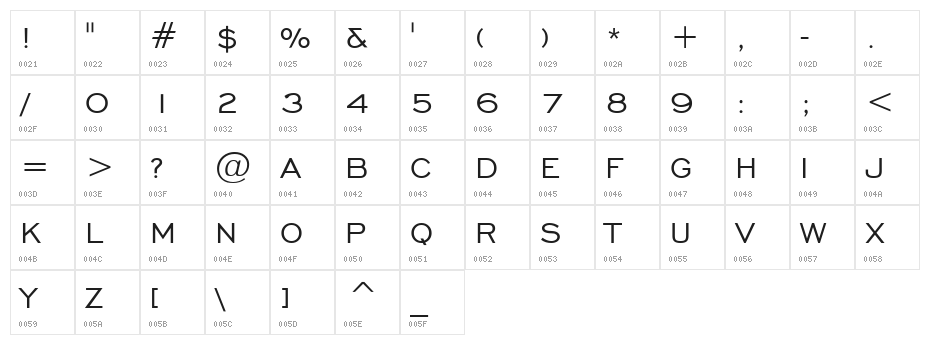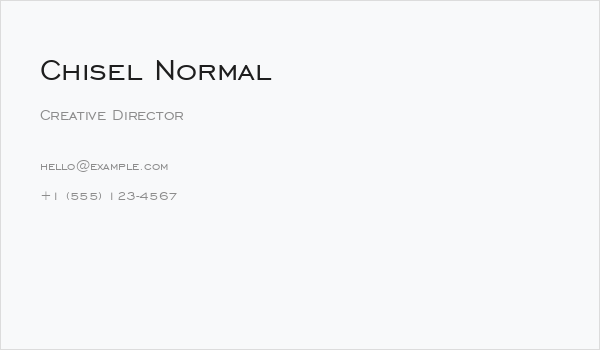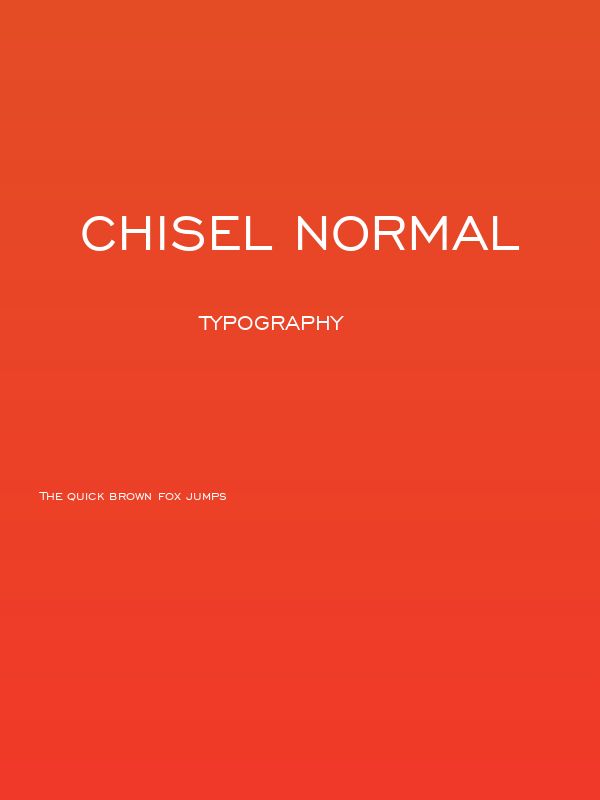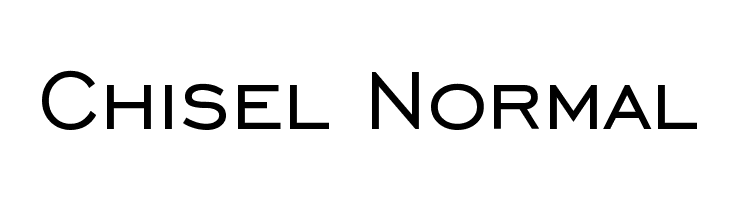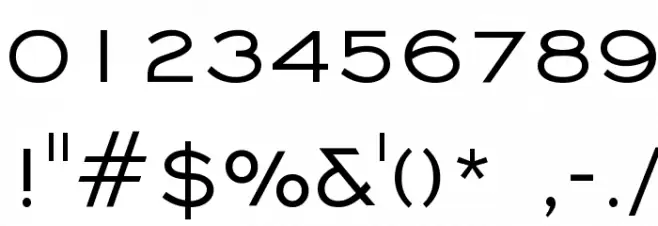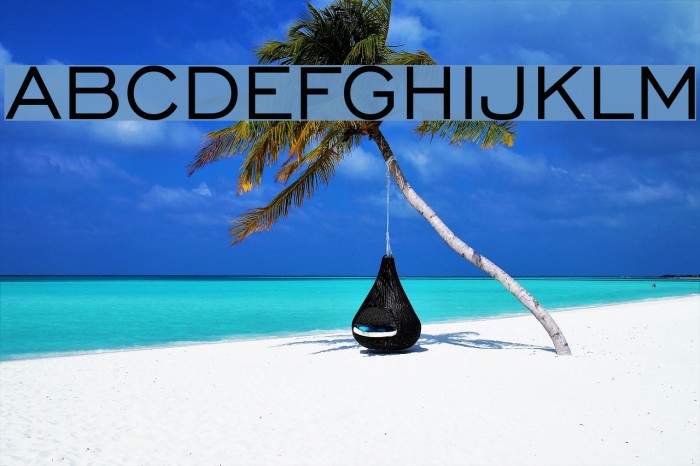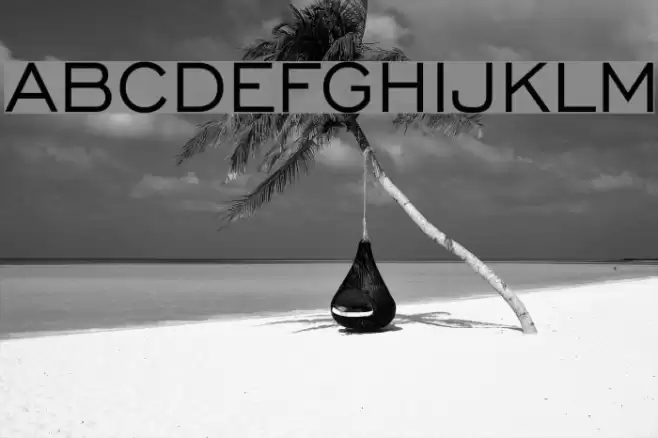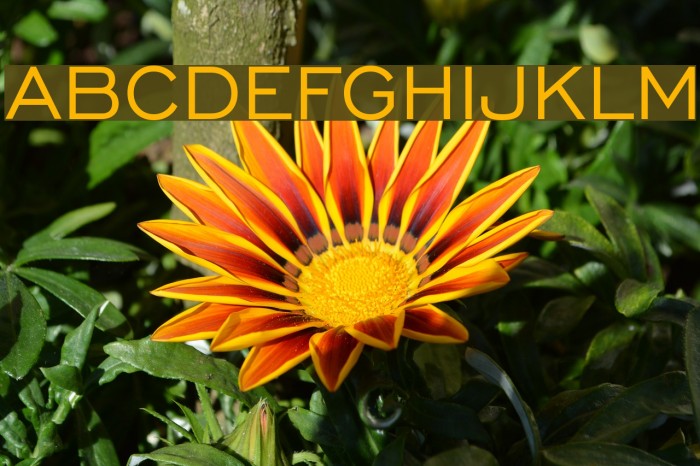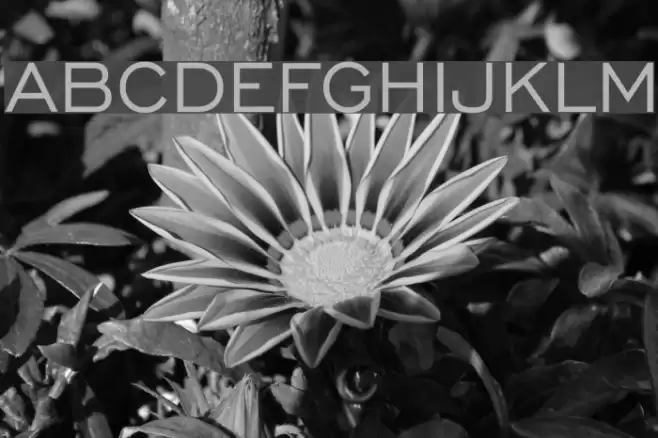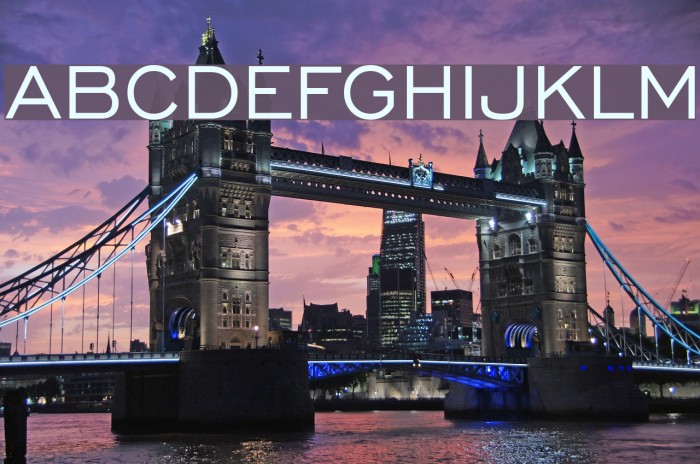
Chisel Normal Font
Chisel Normal Description
This font features a clean and modern sans-serif design with a geometric structure. The characters are uniform and balanced, offering a sleek and professional appearance. The uppercase and lowercase letters maintain a consistent style, with smooth curves and straight lines. The numerals are clear and easily distinguishable, while the special characters are well-integrated into the overall design. This font's simplicity and clarity make it versatile for various applications, ensuring readability and aesthetic appeal.